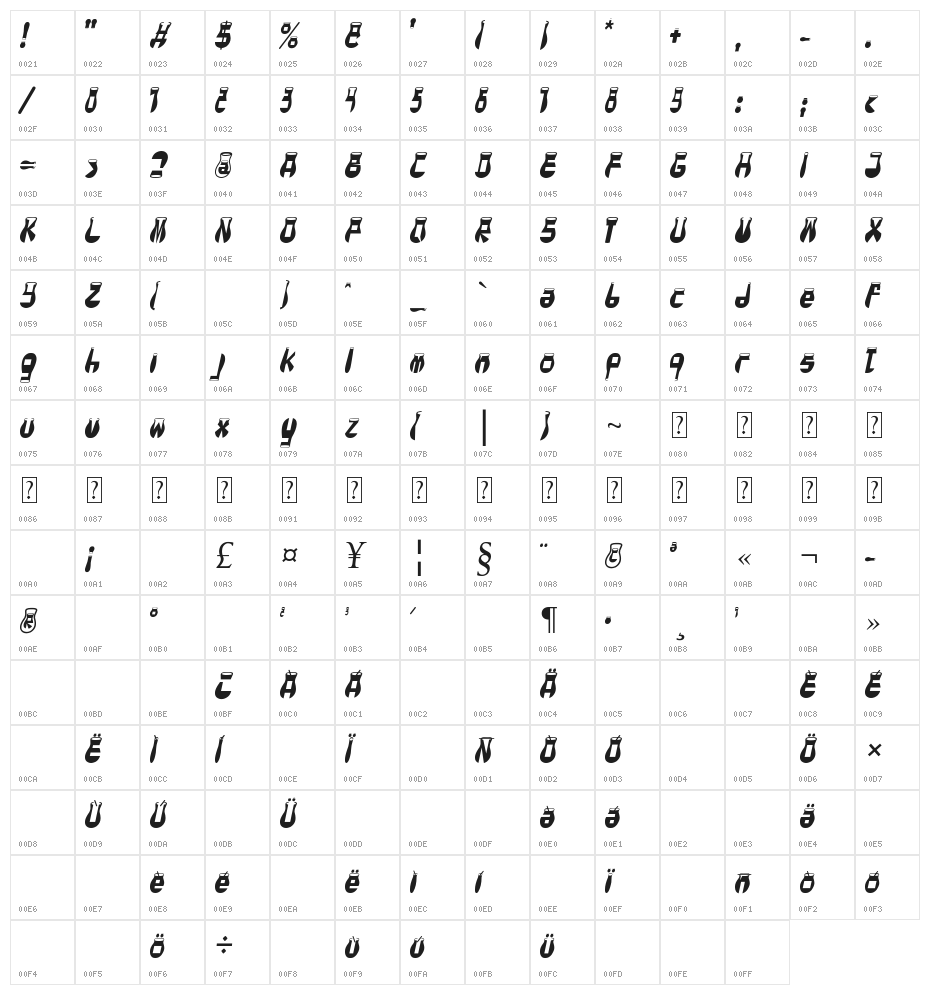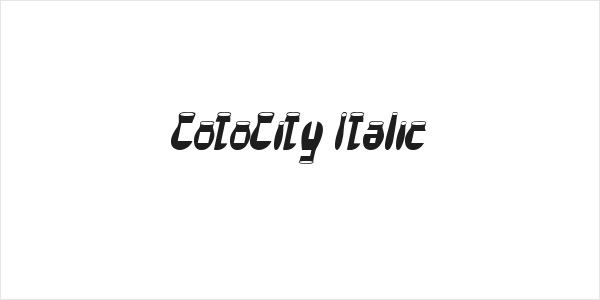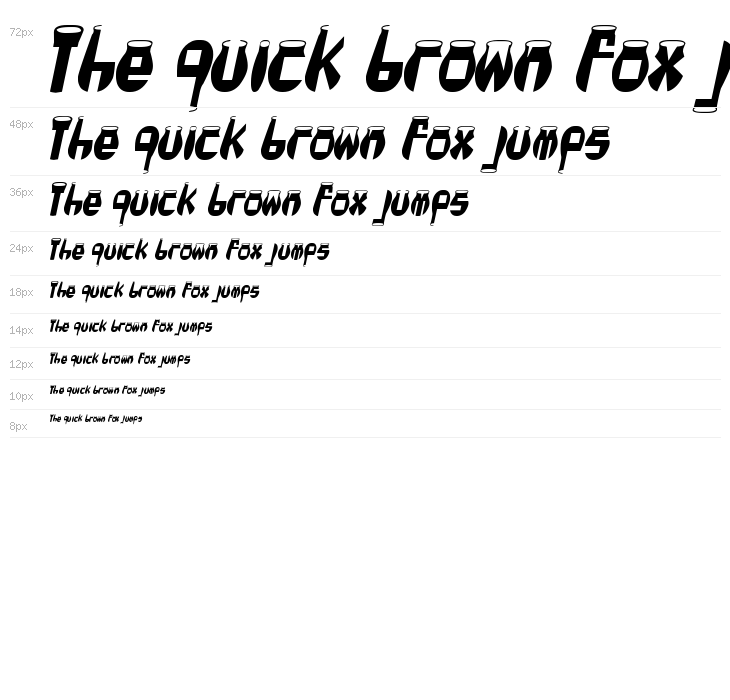
CotoCity Italic Font
CotoCity Italic Description
This font features a bold, italicized style with a futuristic and dynamic appearance. The characters are uniquely designed with a combination of thick and thin strokes, creating a sense of movement and energy. The uppercase and lowercase letters maintain a consistent style, with rounded edges and a slight slant that enhances its italic nature. The numbers and special characters follow the same design principles, ensuring uniformity across all glyphs. This font's distinct look makes it stand out, offering a modern and edgy vibe suitable for various creative applications.